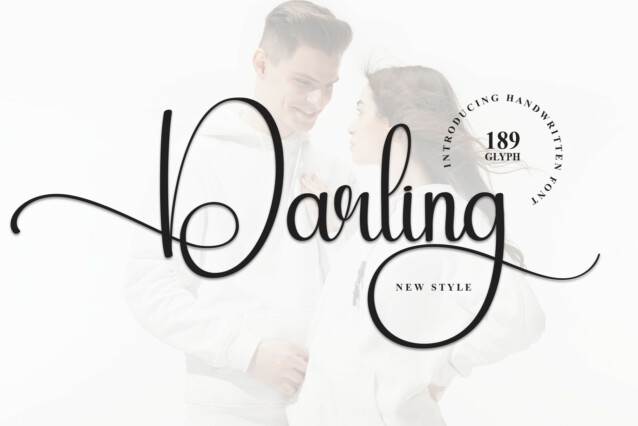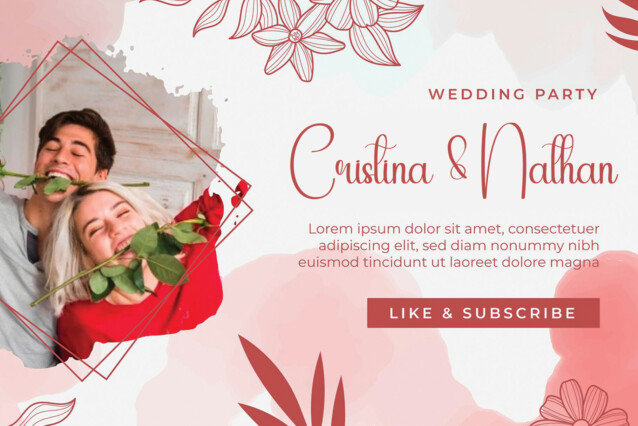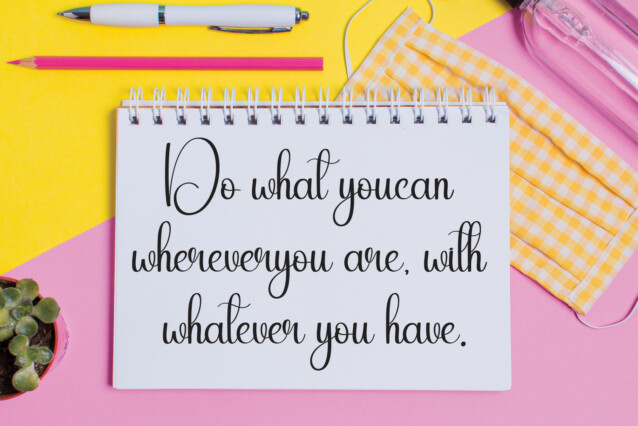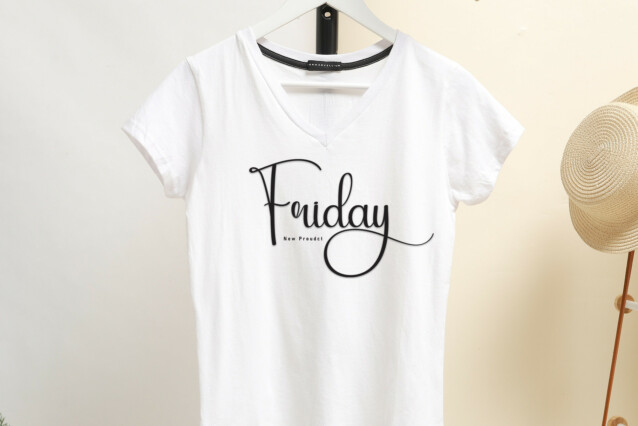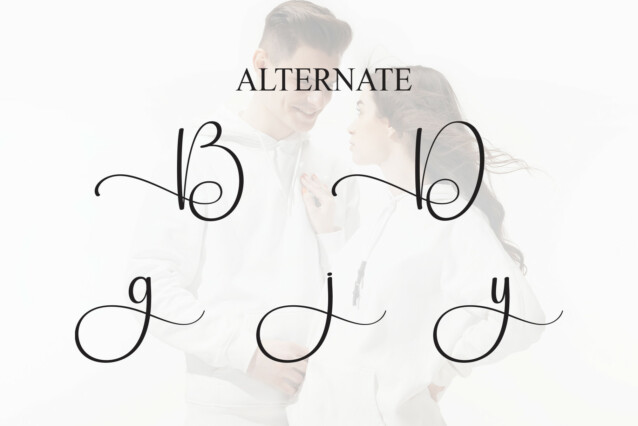
Darling Calligraphy Font
Darling Calligraphy Font is an elegant and dainty handwritten font that features sweet and delicate swashes. This original look will appeal to a wide range of crafty ideas, from letterheads and titles, to stationery.